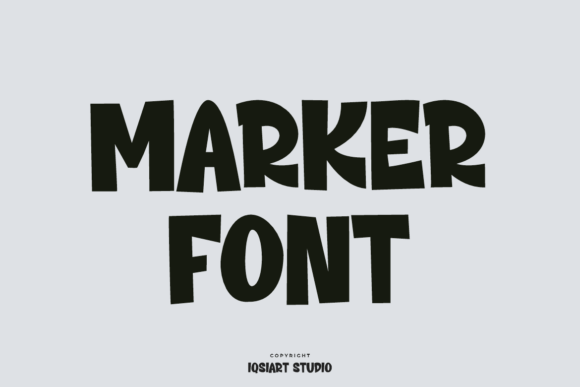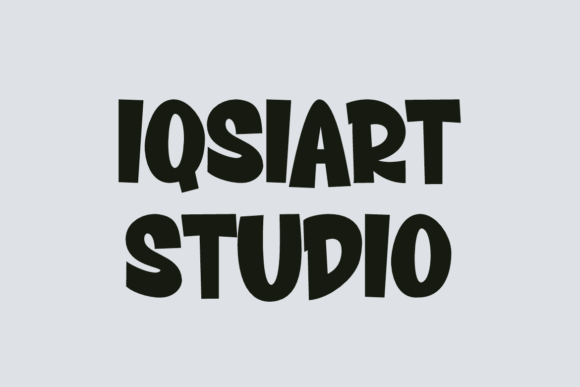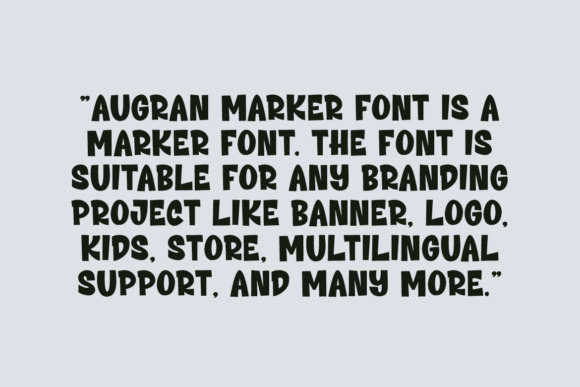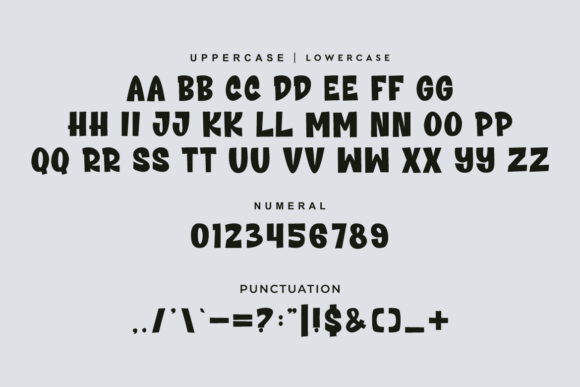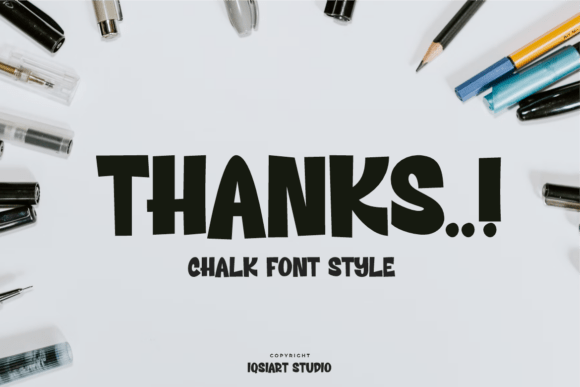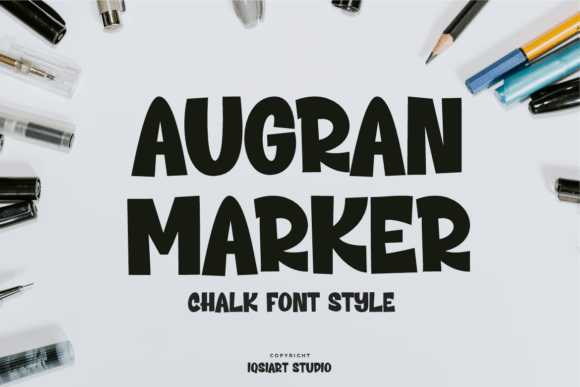
Introducing Augran Marker Font: Adding a Playful Touch to Your Designs
Are you looking for a font that can add a dash of playfulness and creativity to your designs? Look no further than Augran Marker Font. This bold and playful chalk-style font is perfect for school themes, kid-friendly designs, posters, signage, and anything that needs a creative burst of energy.
The Charm of Hand-Drawn Marker Lettering
Augran Marker Font captures the casual charm of hand-drawn marker lettering, with chunky strokes and fun, uneven edges that bring a lively, expressive feel to your projects. The font’s unique character is reminiscent of handwritten notes on a blackboard or colorful markers on a whiteboard. Its imperfections and irregularities make it feel approachable, friendly, and fun.
Augran Marker Font is versatile and can be used for a wide range of design projects. Here are some ideas to get you started:
- School Themes: Create eye-catching posters, flyers, and brochures for school events, announcements, or educational materials.
- Kid-Friendly Designs: Use Augran Marker Font to create fun and engaging designs for children’s products, such as toys, games, or books.
- Posters and Signage: Add a pop of color and energy to your posters, signs, and banners with this playful font.
- Headlines and Titles: Use Augran Marker Font to create bold and attention-grabbing headlines, titles, and subtitles for your designs.
Key Features of Augran Marker Font
Here are some key features that make Augran Marker Font stand out:
- Bold and Playful: Augran Marker Font is a bold and playful font that adds a touch of whimsy to your designs.
- Chalk-Style: The font has a chalk-style feel, with chunky strokes and uneven edges that give it a hand-drawn look.
- Highly Readable: Despite its playful nature, Augran Marker Font is highly readable, making it perfect for use in a variety of design projects.
- Versatile: The font is versatile and can be used for a wide range of design projects, from school themes to kid-friendly designs.
Tips for Using Augran Marker Font
Here are some tips for using Augran Marker Font in your designs:
- Pair with Other Fonts: Pair Augran Marker Font with other fonts to create visual interest and add depth to your designs.
- Experiment with Colors: Experiment with different colors to find the perfect combination that matches your brand or design theme.
- Use for Headlines: Use Augran Marker Font for headlines and titles to add a bold and playful touch to your designs.
- Keep it Simple: Keep your design simple and uncluttered to let the font’s playful nature shine through.
Augran Marker Font is a bold and playful chalk-style font that adds a touch of whimsy to your designs. Its chunky strokes and fun, uneven edges bring a lively, expressive feel to your projects, making it perfect for school themes, kid-friendly designs, posters, signage, and anything that needs a creative burst of energy. With its versatility, readability, and playful nature, Augran Marker Font is a great addition to any designer’s font collection.